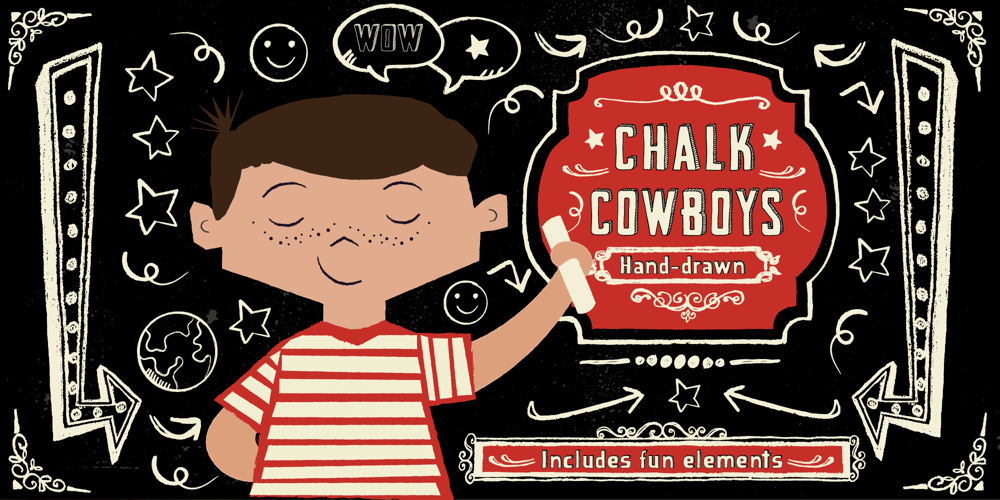
Chalk Cowboys Font Family was designed by Marie Dautel and published by Learning Kiddos. Chalk Cowboys contains 2 styles and family package options. Chalk Cowboys is a vintage chalk font, handwritten by me. It has a real chalkboard feel and is a: textured font handwriting font has bonus shape elements and full Latin support As a bonus you will get real chalkboard shapes (as seen in preview pic three). Get creative and use this retro font for: a menu food branding as a display font for invites chalk lettering (of course =)) shirt designs magazine layout Instagram posts or any Social Media posts, really This font also works great as a running text, too. =)Don’t forget to check out my two other fonts:Casual CrewSignsurfers Script